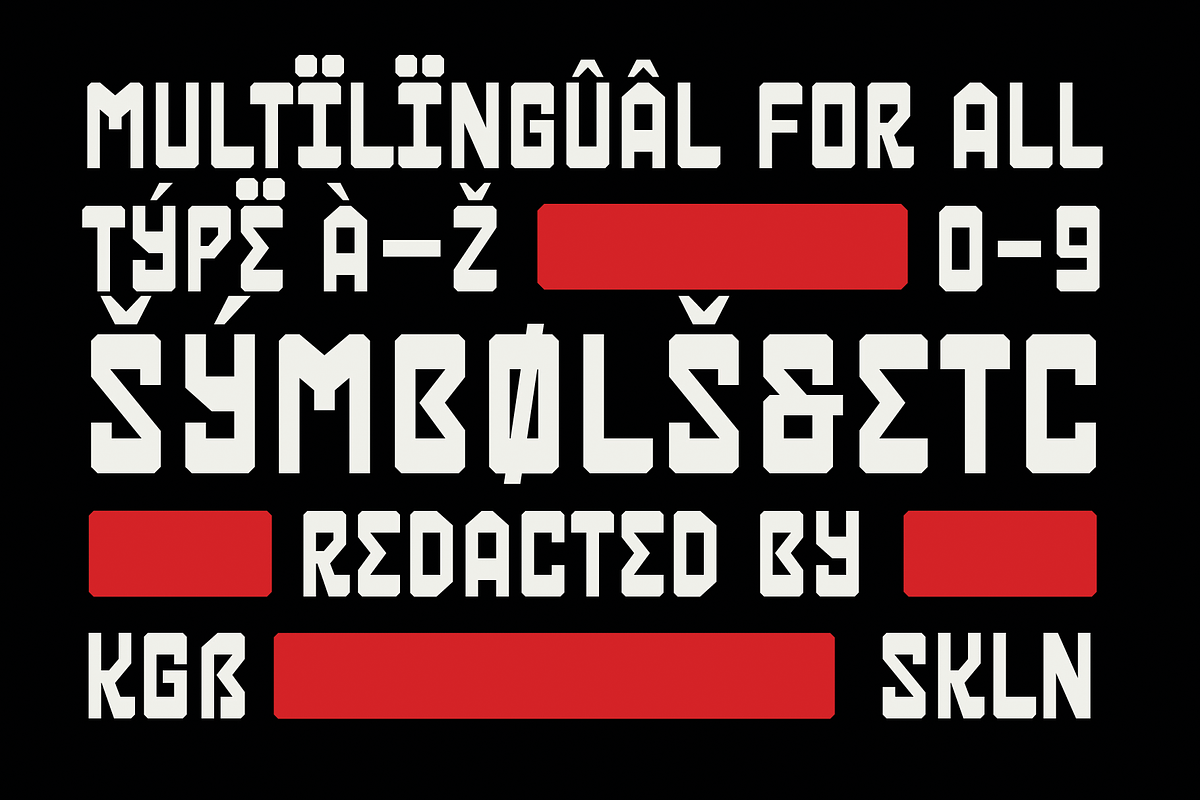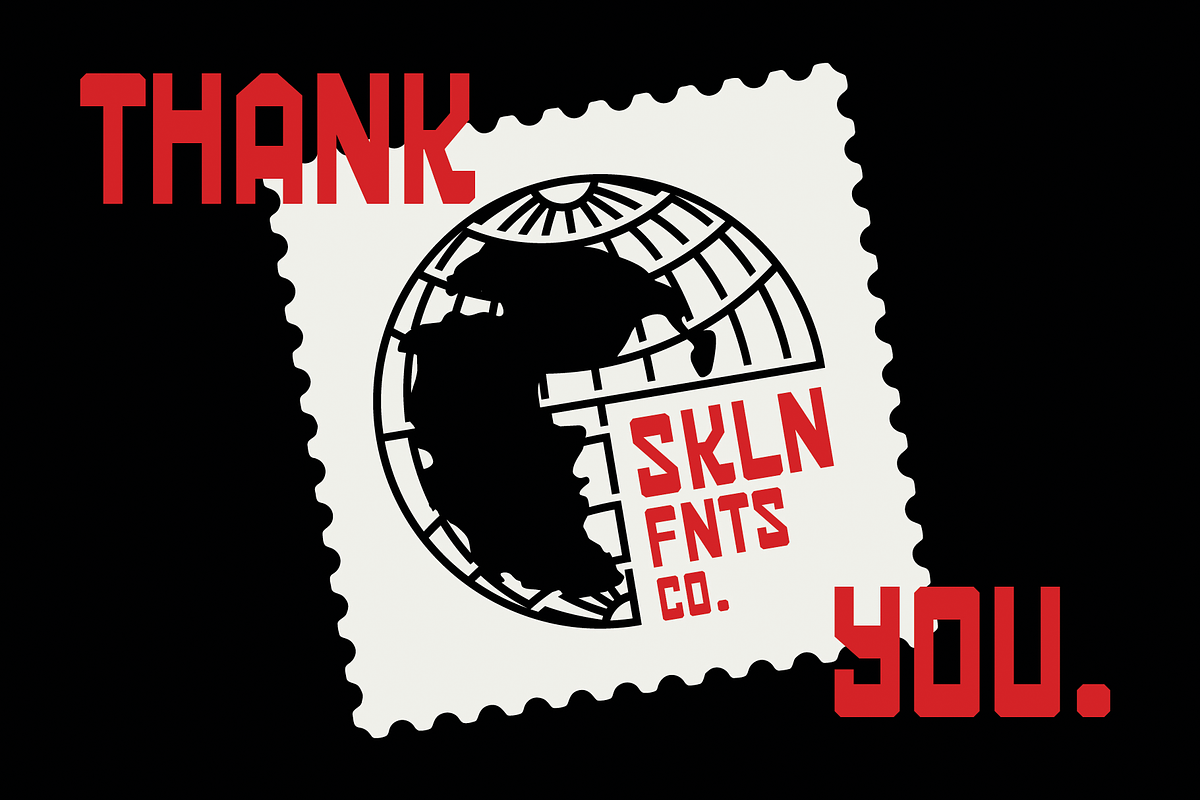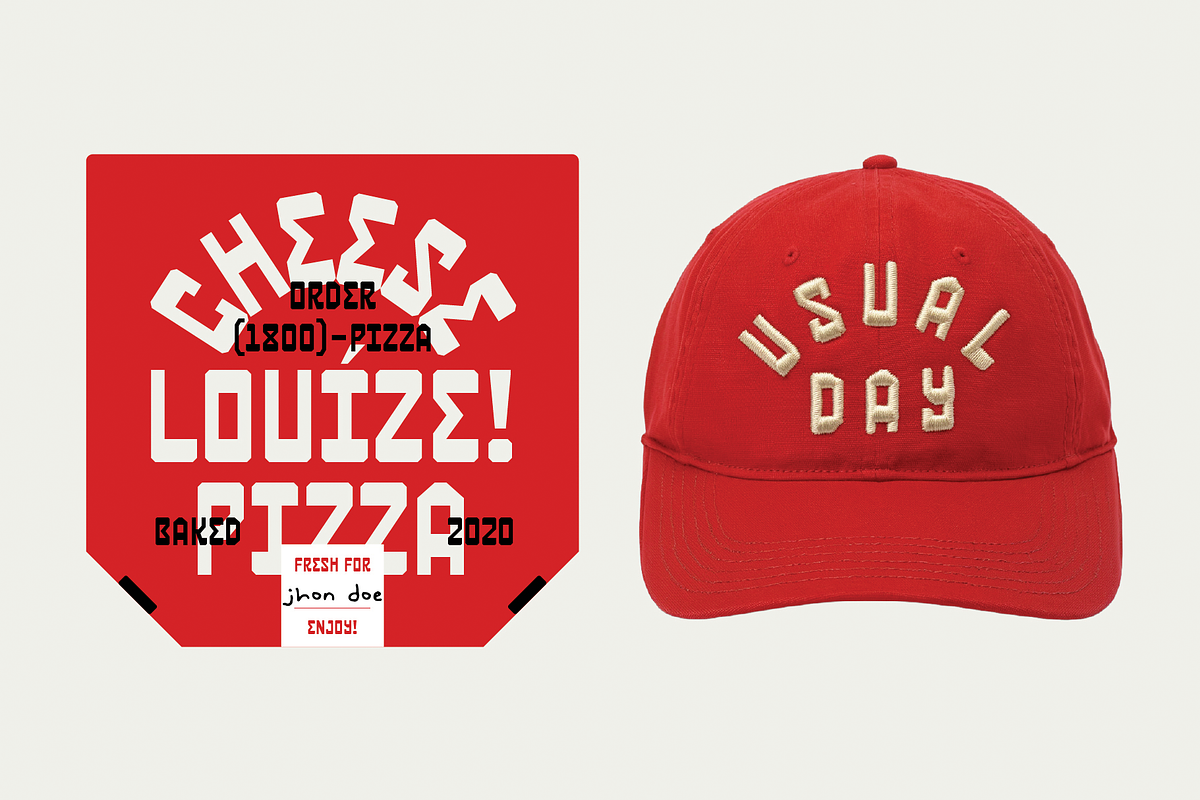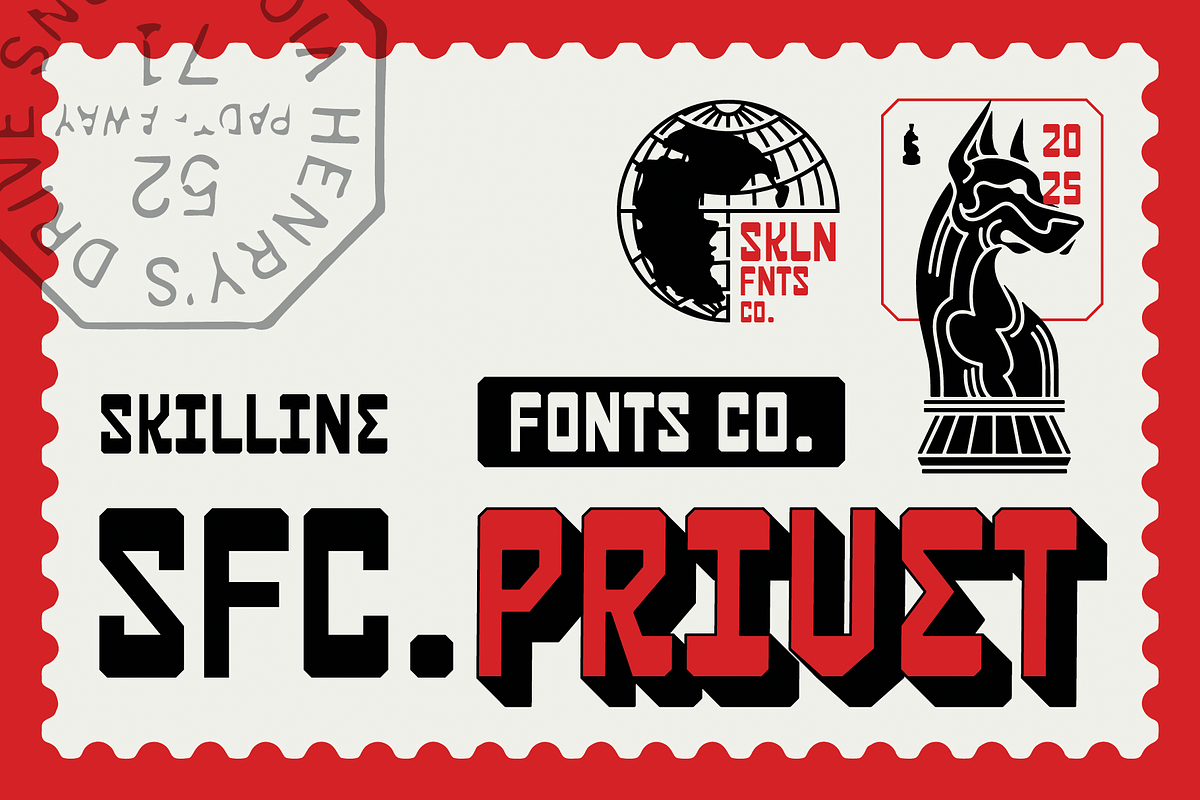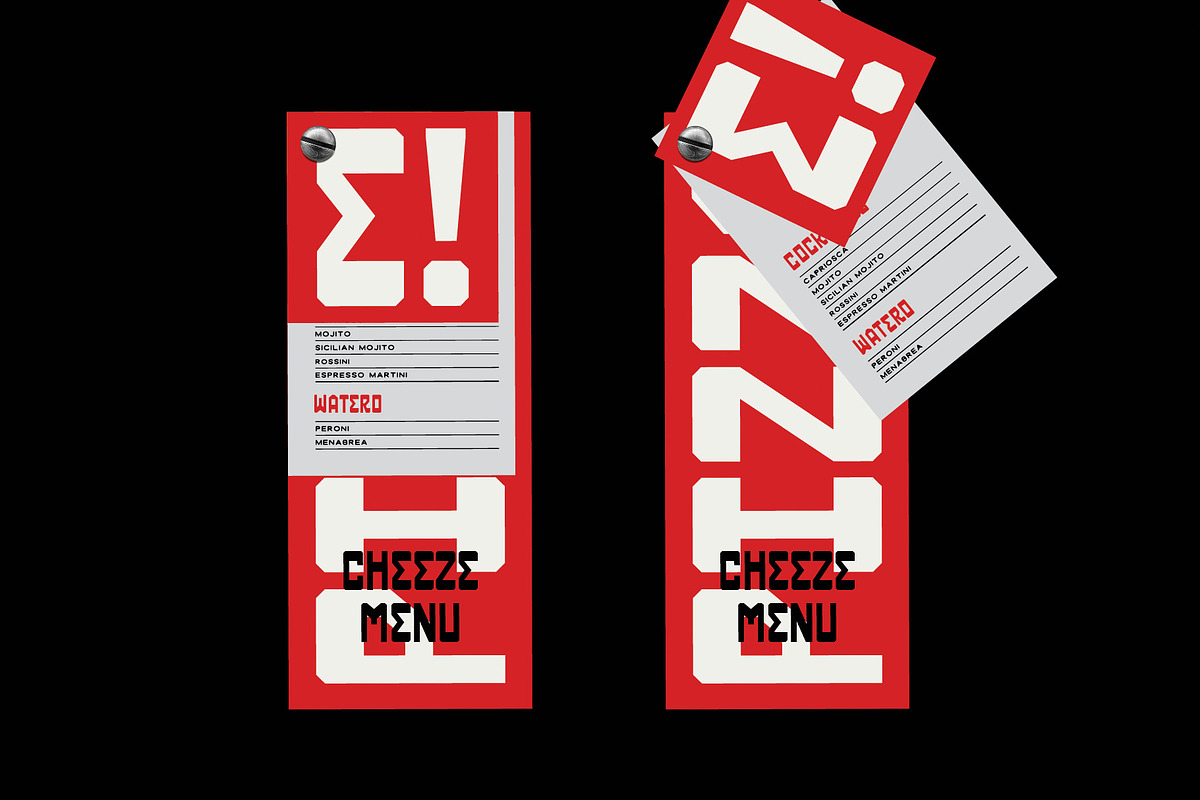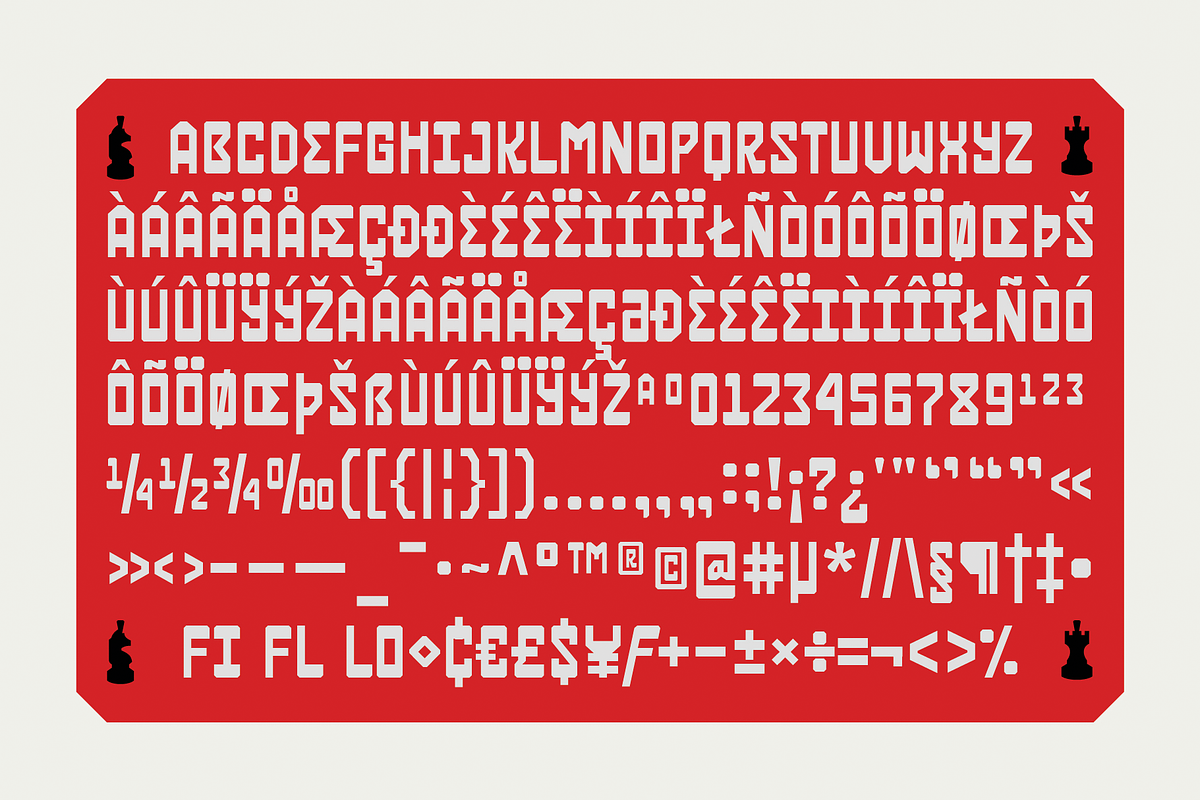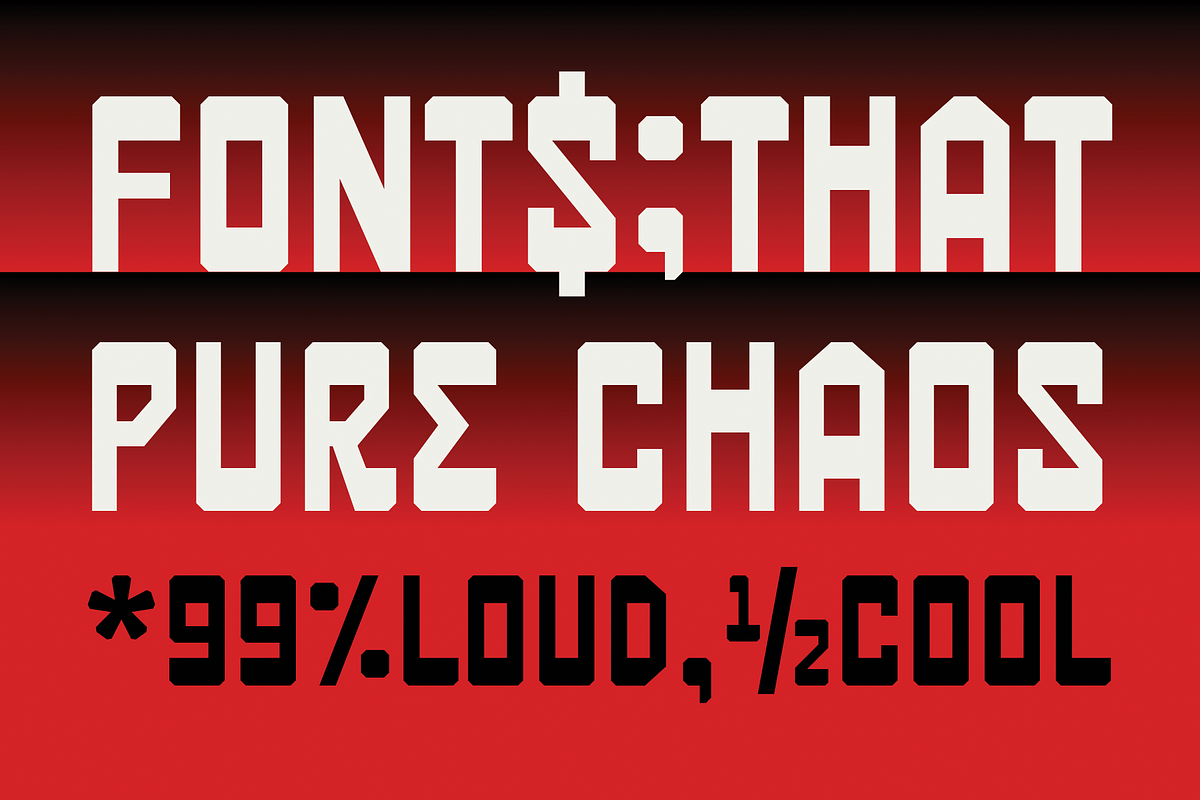
SFC Privet
SFC Privet is a bold geometric display font inspired by industrial architecture, mechanical structure, and modern brutalist aesthetics. Designed with sharp angular cuts, compact proportions, and confident weight distribution, it delivers a strong and commanding visual presence rooted in clarity and precision.
Its distinctive letterforms balance rigid construction with expressive character, making SFC Privet ideal for impactful branding and statement typography. Perfect for logos, sports identities, packaging, posters, and streetwear graphics, this typeface combines visual strength with professional versatility through multilingual support and extended glyph coverage.
IDEAL APPLICATIONS
- Branding & visual identity
- Sports & athletic graphics
- Packaging & label design
- Posters & promotional ads
- Restaurant & menu typography
- Apparel & streetwear merchandise
- Signage & display systems
- Multilingual Character Set
- Fractions & Currency Symbols
- Uppercase Letter Set